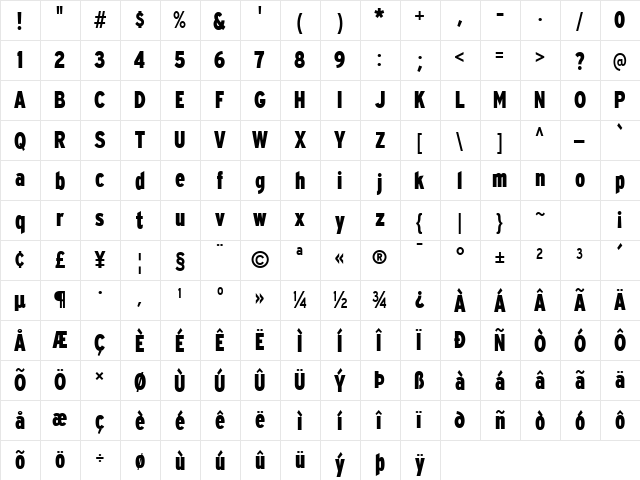
Expressway Condensed ExtraBold
Design Context for Expressway Typeface
Expressway offers clean, dependable letterforms without strong stylistic allegiance, making it a practical choice for designers who need flexibility. The heavy weight commands attention and anchors typographic hierarchies. The condensed width makes it efficient for tight spaces without sacrificing legibility.